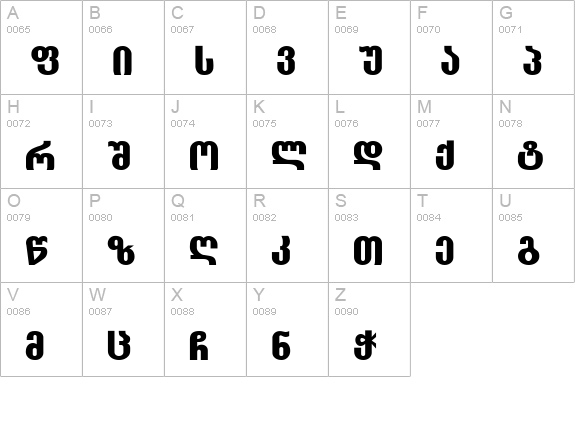
Grotesky-ITV Bold Font Details
Grotesky-ITV Bold is a strong, high-contrast variant in the Grotesky typeface family \xE2\x80\x94 well suited to headlines, attention-grabbing titles, and strong calls-to-action.
Grotesky-ITV Bold font is a striking and modern typeface that commands attention with its bold and robust appearance. With its clean lines and sharp angles, this font exudes a sense of strength and confidence. Perfect for headlines, logos, and branding projects, Grotesky-ITV Bold adds a touch of sophistication to any design. The best part? Grotesky-ITV Bold is available for free download at FontsMarket.com. You can access this premium font without any cost, making it a valuable addition to your font library. Whether you're a designer looking to make a statement or a business seeking a distinctive visual identity, Grotesky-ITV Bold is the perfect choice. Download it today and elevate your design projects with this exceptional font.